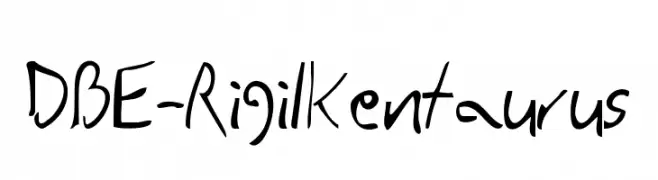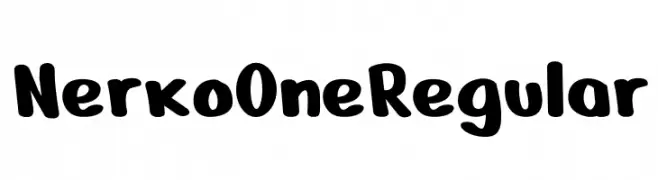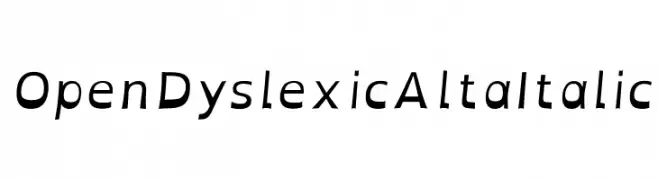
An accessible, italic font with distinct, weighted letterforms for enhanced readability.
A playful and dynamic handwritten font with fluid, irregular strokes.
A playful, bold font with rounded edges and a hand-drawn feel.
A playful, modern font with geometric and cursive elements.
A clean, structured serif font with medium contrast and excellent readability.
A bold, classic serif typeface with high contrast and elegant serifs.
Elegant serif font with a classic italic slant and moderate contrast.
A bold, angular font with a modern and edgy style.
A medieval-inspired font with sharp serifs and curved strokes, offering a bold and elegant appearance.
A bold, geometric font with a modern and industrial feel.